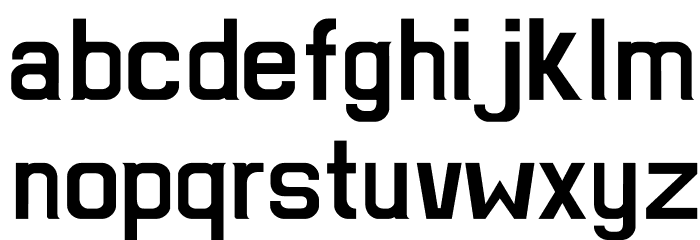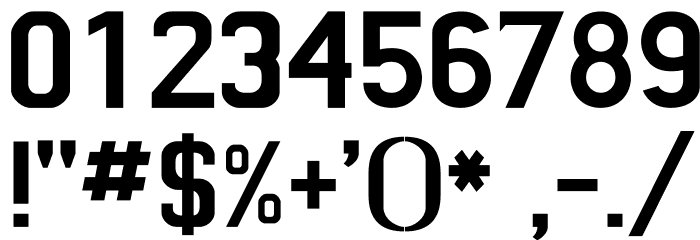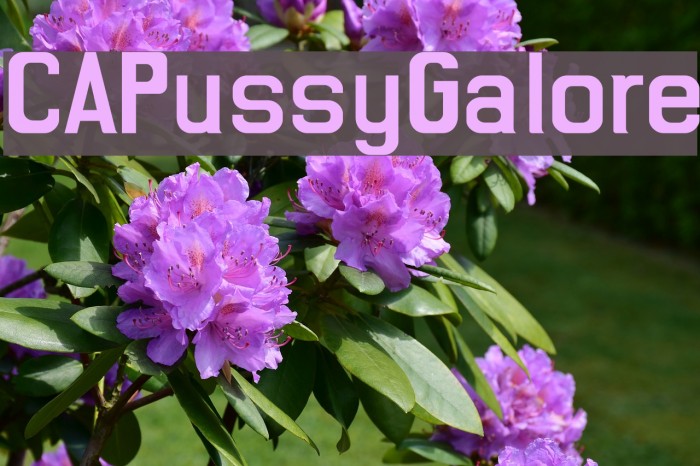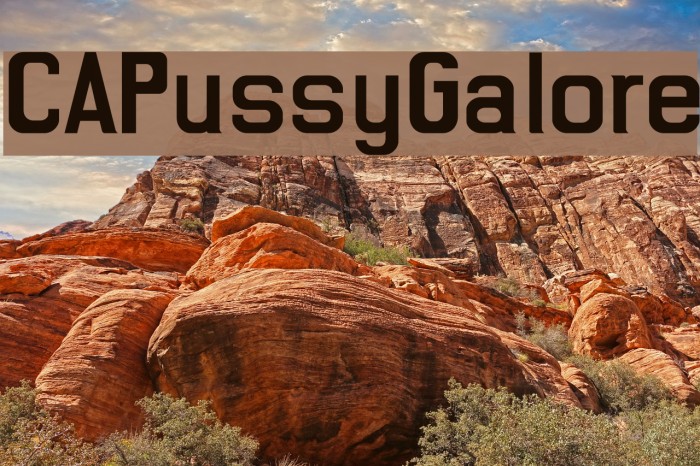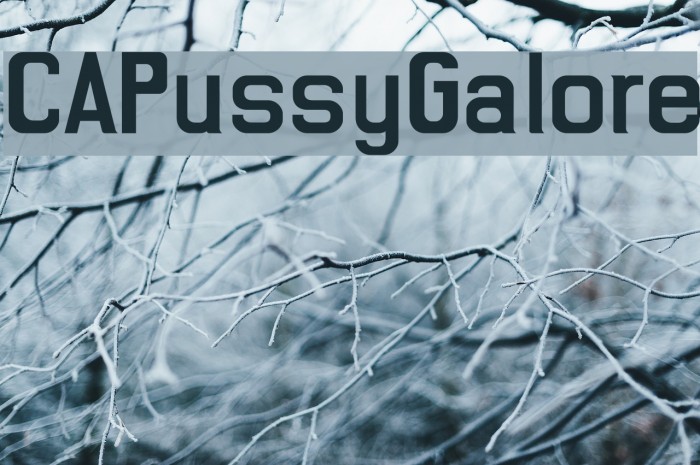
CAPussyGalore Font
This font features a bold, geometric sans-serif style with a modern and clean appearance. The characters are well-defined with a strong presence, making it suitable for impactful headlines and titles. The uppercase letters are uniform in height, while the lowercase letters maintain a consistent baseline, offering a harmonious look. The numerals are clear and legible, matching the overall boldness of the alphabet. Special characters are distinct and complement the font's robust design. The font's structure is straightforward, with minimal contrast in stroke thickness, emphasizing clarity and readability.
A bold, geometric sans-serif font with a modern and clean design.
- Proposed Projects: Ideal for branding, advertising, posters, and digital media where a strong visual impact is desired.